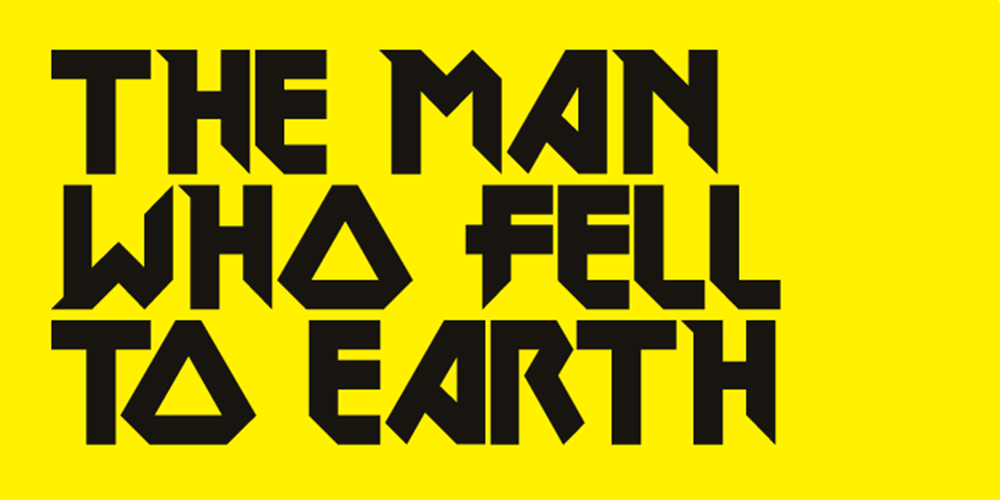
DokterBryce Font Family was designed by Jonathan Hill and published by The Northern Block. DokterBryce contains 6 styles and family package options. A stylized typeface directly inspired by the movie poster artwork for The Man Who Fell To Earth starring David Bowie.